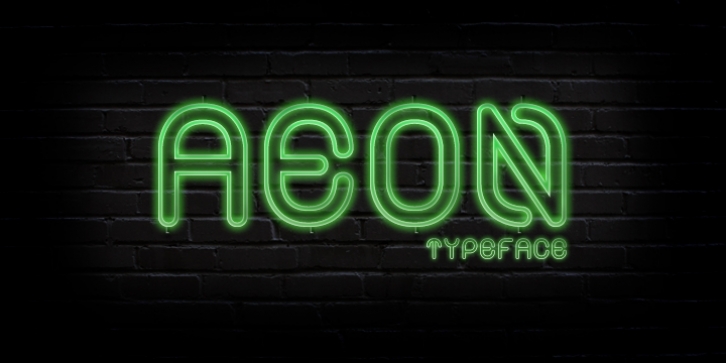
Alt Aeon downloadDesigner: Andreas Leonidou
Aeon is a 6-weight family and can be use in almost every graphic design application; it’s great for minimal design, logos, posters, and magazines.